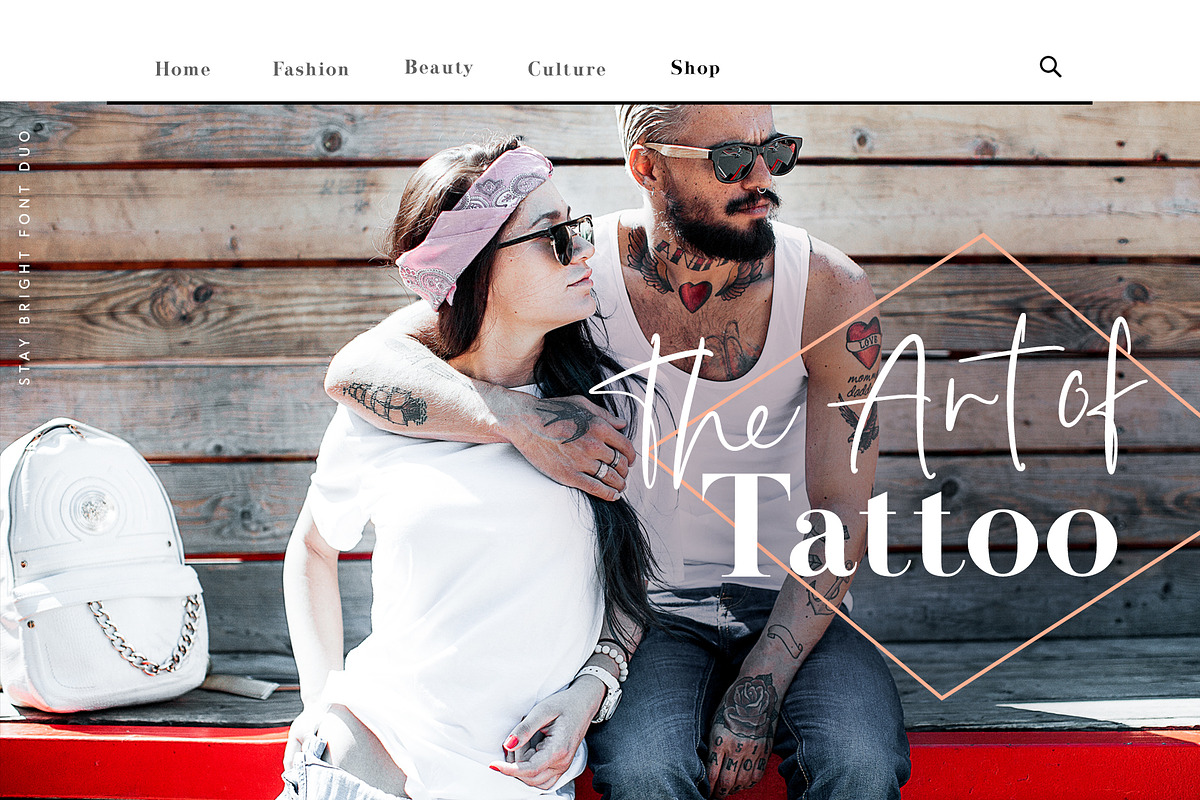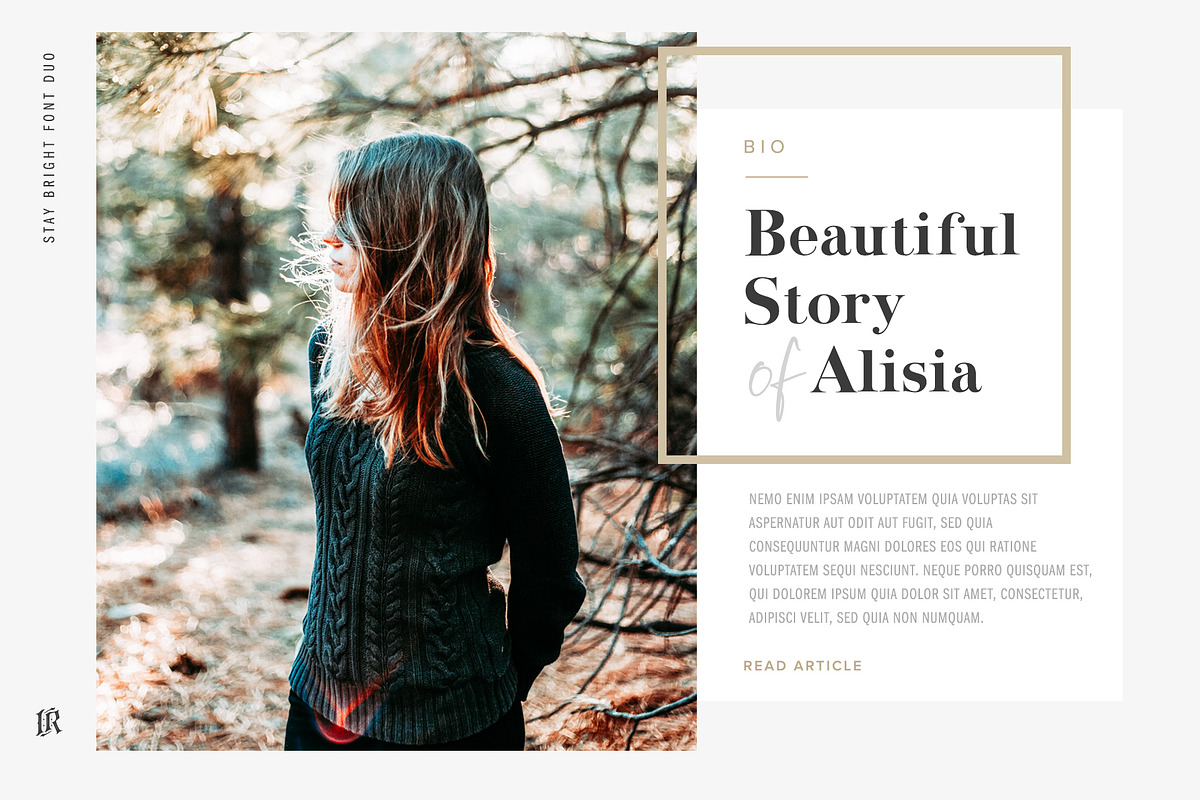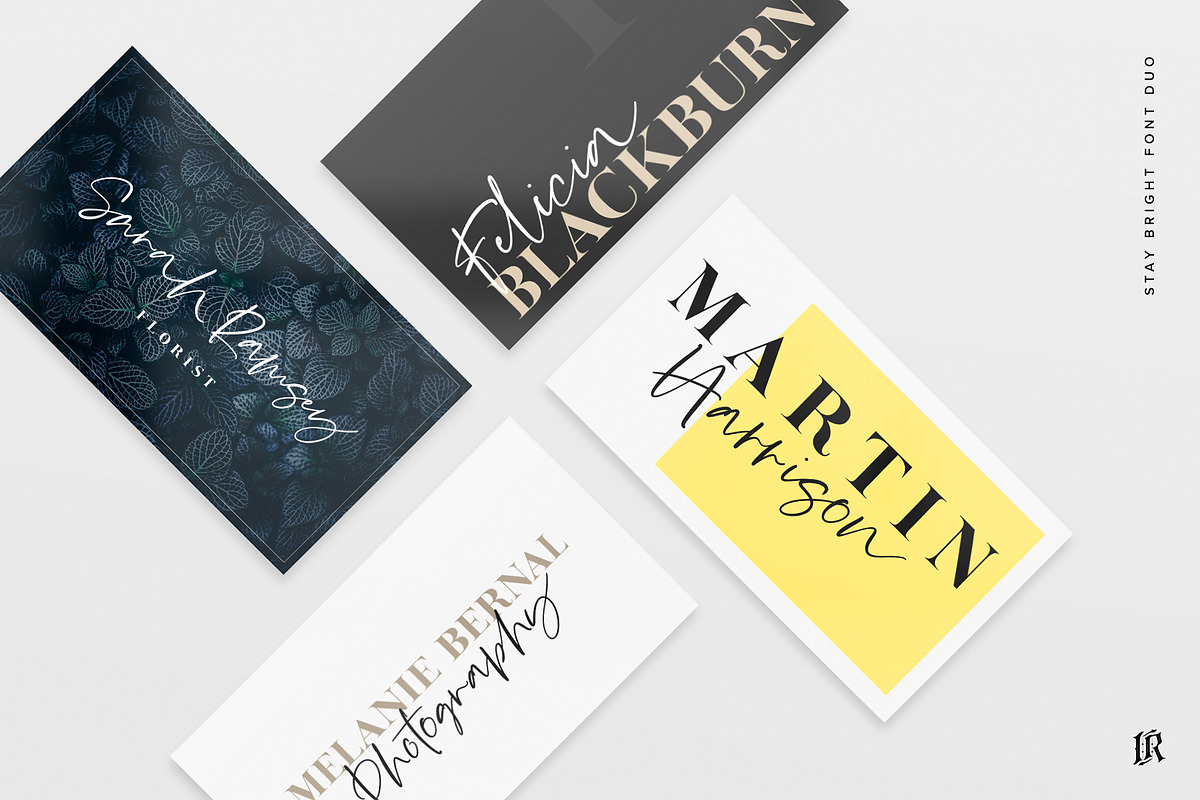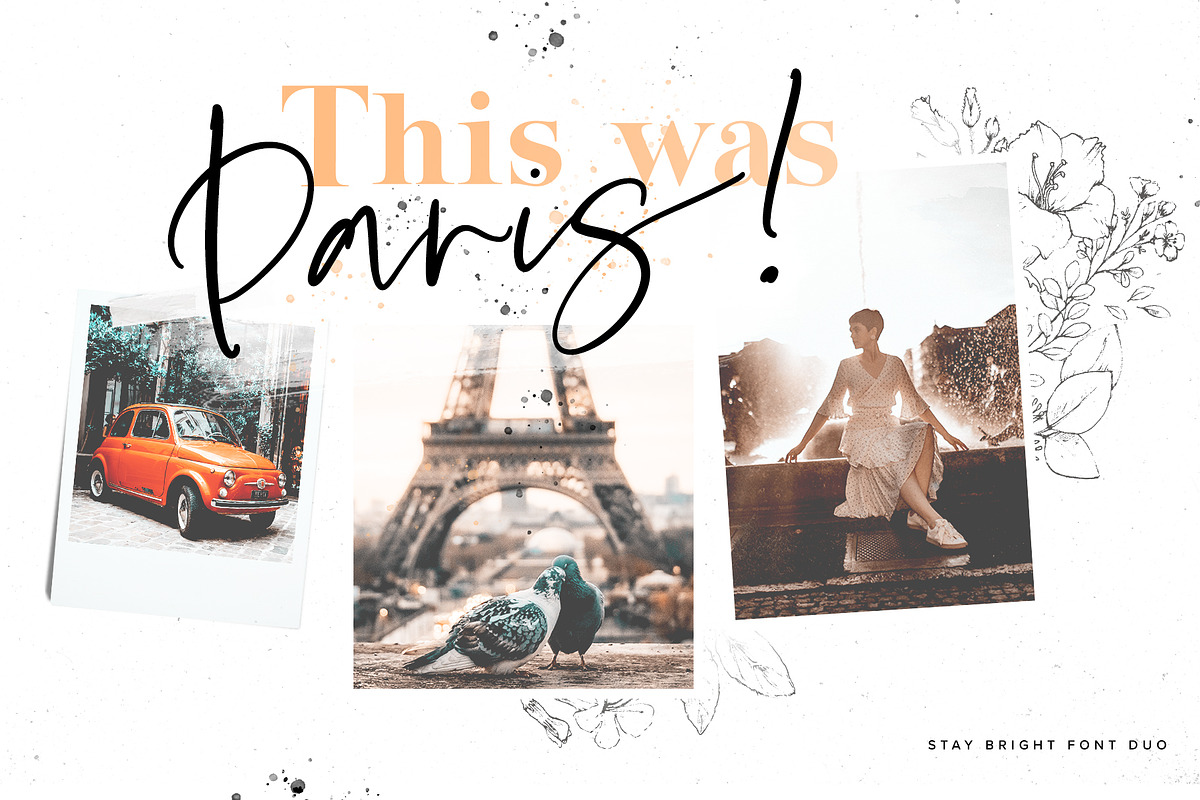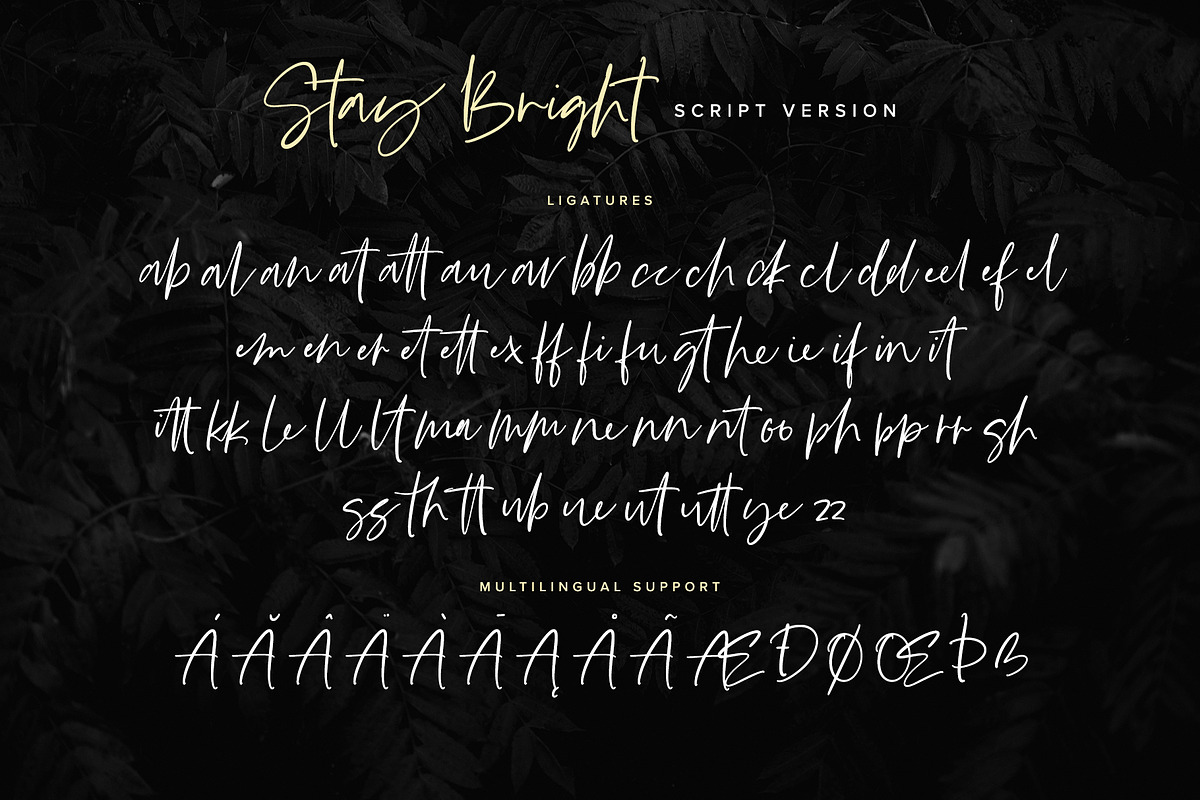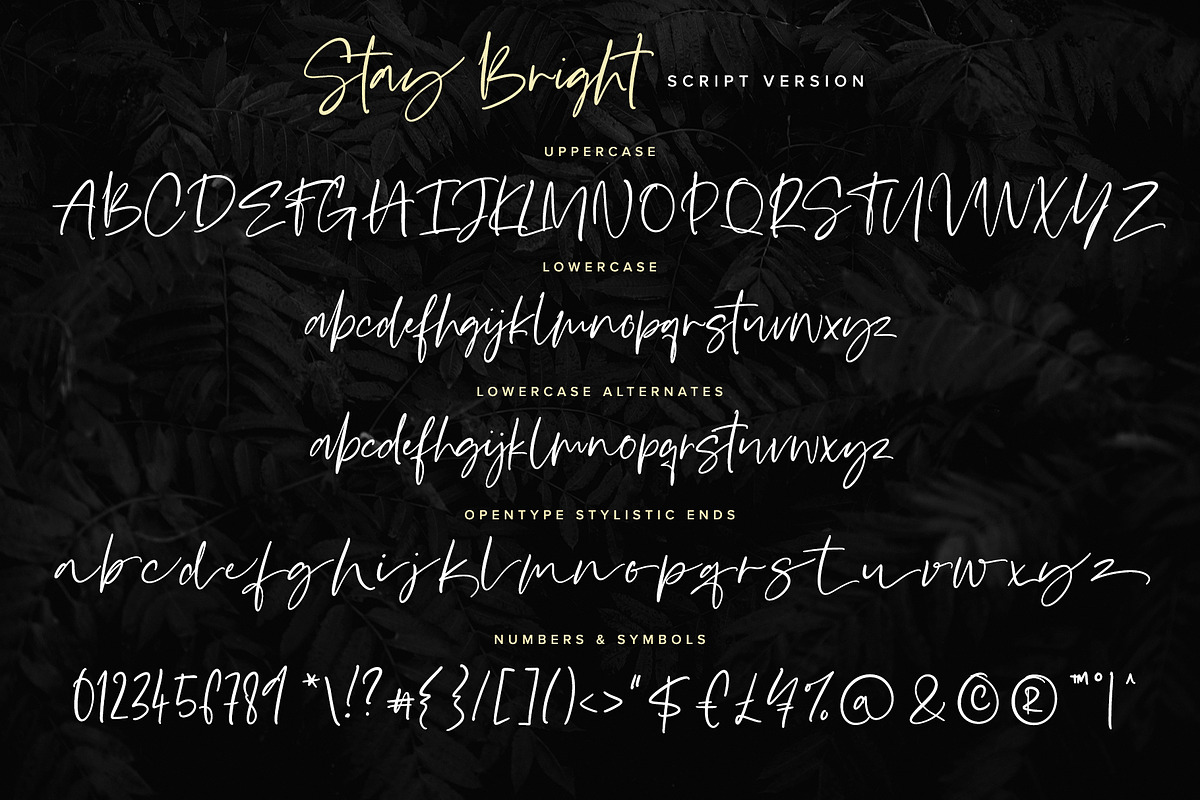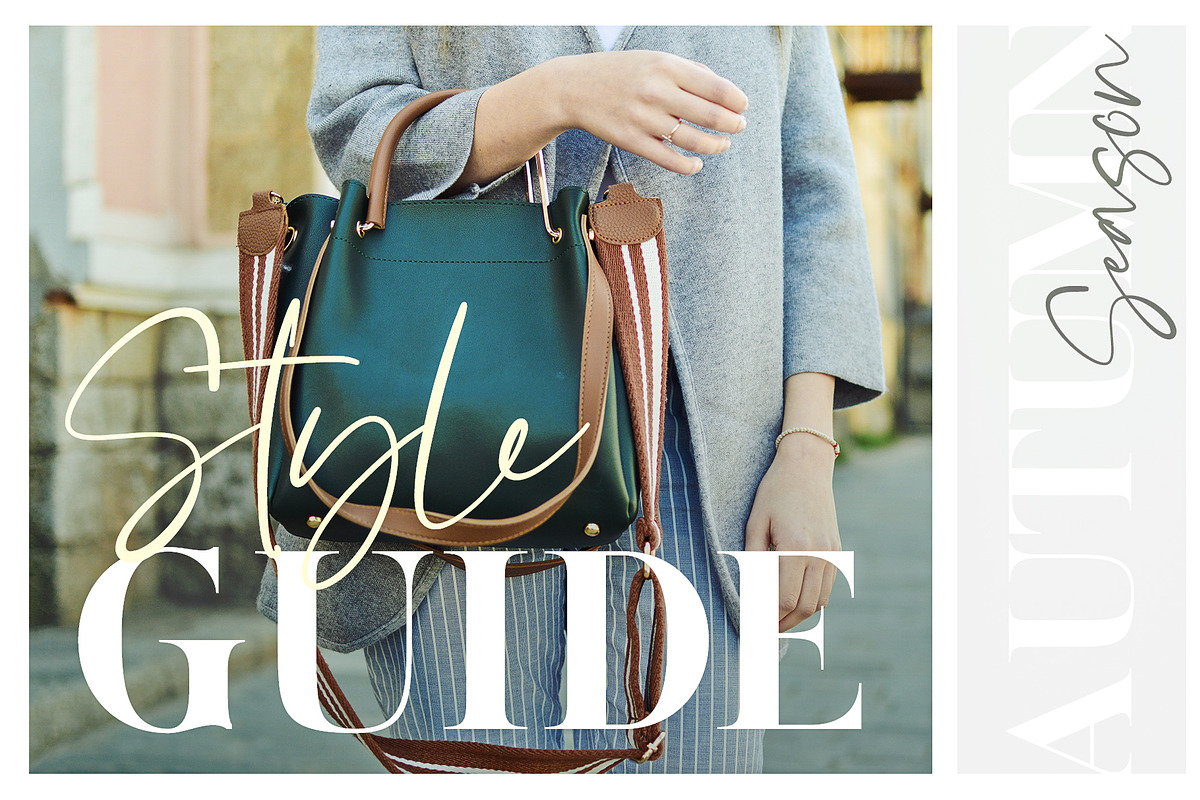
Stay Bright Font Duo
Stay Bright is a modern font duo consisting of a signature style script and elegant serif font. Both fonts includes multilingual support for Western and Central Europe. Is ideal for weddings invitations, baby showers, blog website, instagram, branding, invitations, business cards, and many more. This font also include complete set of alternates and stylistic ends for lowercase characters.
Stay Bright Script : It contains one set of opentype stylistic lowercase alternates and one set of opentype stylistic ends. Script version contains 55 LIGATURES.